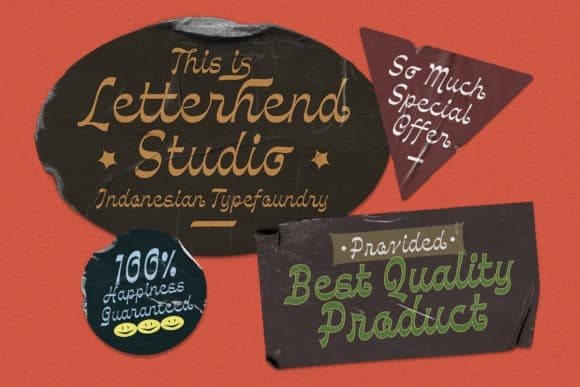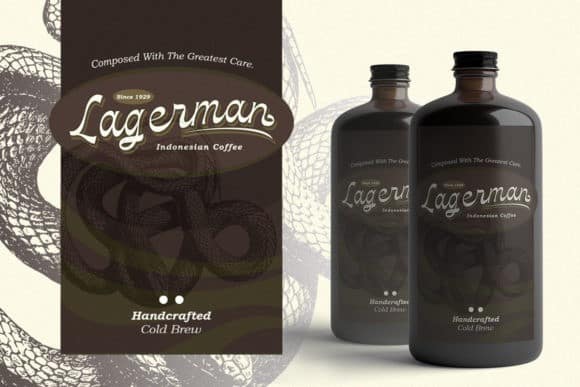
The Achiever Script Font
The Achiever Script Font is a font with a modern classic look a font that adopts a contemporary style with modern elements. Made from font designer named letterhend. This typeface is an incredibly beautiful and vintaged style handwritten font. Elegant and unique, this font looks absolutely remarkable on a variety of creations!